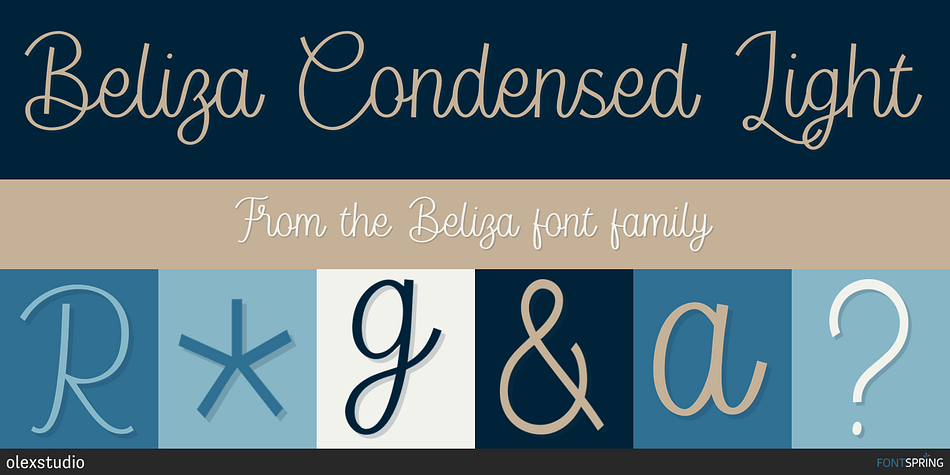
Beliza Condensed Light
Beliza is a font family. This typeface has six styles and was published by olexstudio.
BELIZA - Script Family font will look gorgeous on all your designs, invitation, poster design, book design, branding materials, logo’s, t-shirt and all project design other.